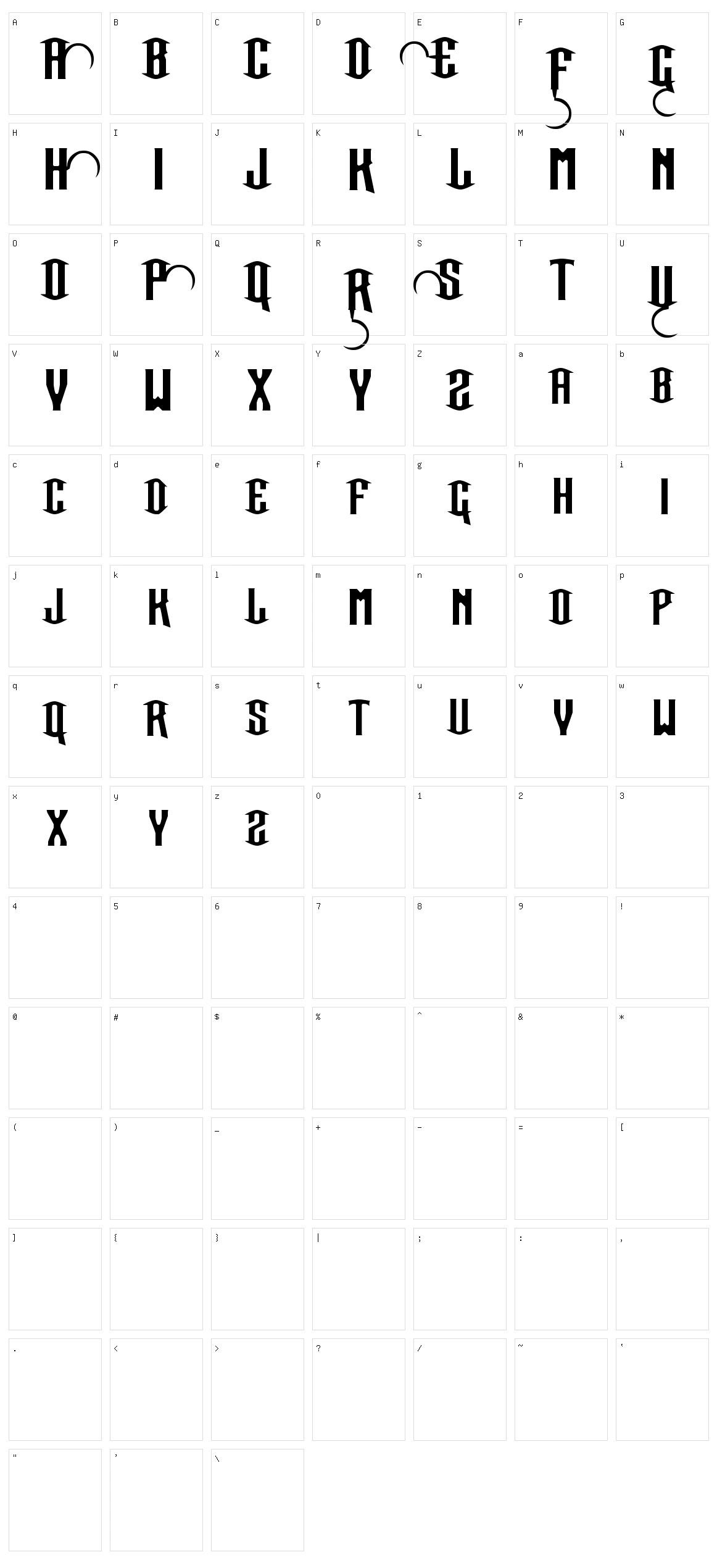
Our Sacred Rights
Description: The free font Our Sacred Rights is carefully designed by Bolt Cutter Design-Industrial Strength, showcasing a thoughtful balance of creativity and usability and belongs to the Gothic font family. When you download the ZIP file, it contains only 8.83 KB of font files, making it lightweight and quick to download. Please review the license details below to understand permitted usage and distribution rights. If license information is not available, we recommend using this font for personal projects only or contacting the author directly for commercial usage permissions.